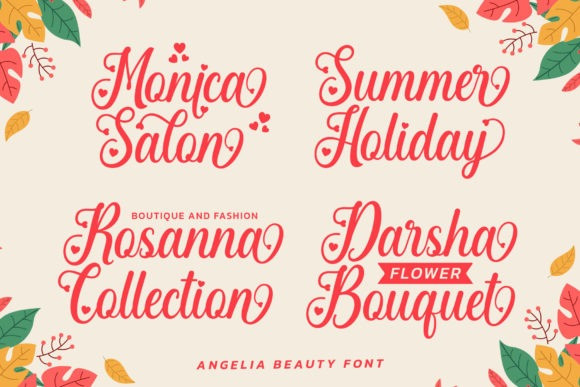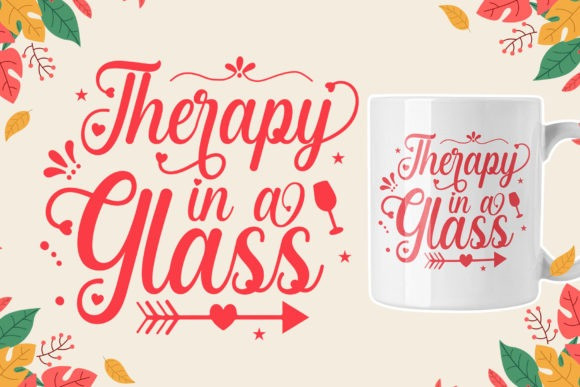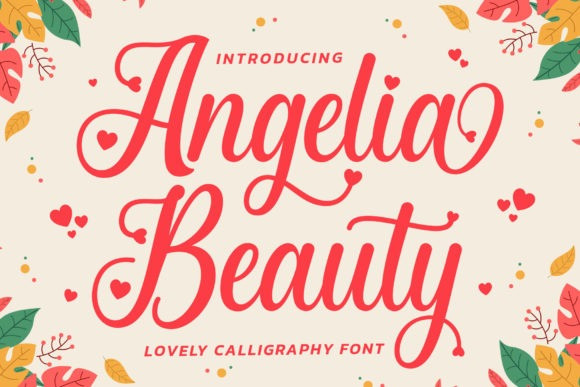
Angelia Beauty Font
Angelia Beauty Font, is a beautiful and elegant script font. It has a classy, unique and modern look that can be used for logos, branding, invitations, stationery, wedding designs, greetings card, social media posts, and much more!